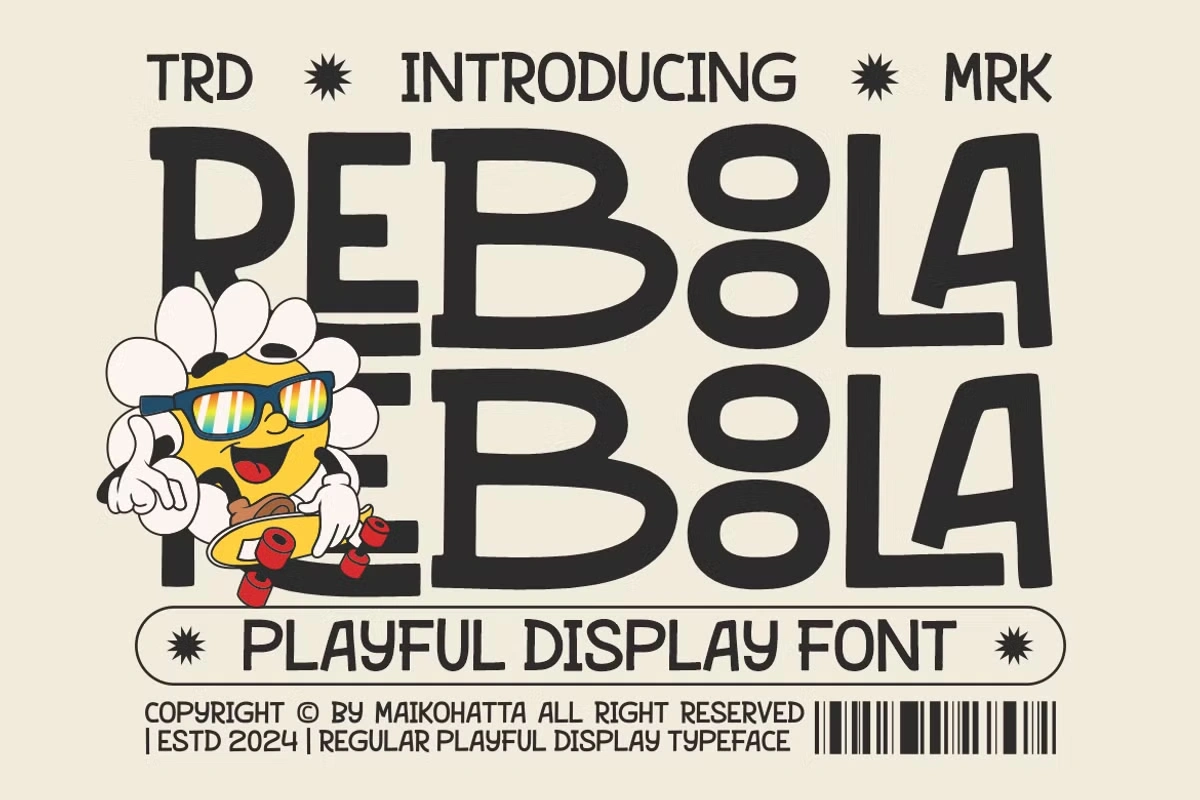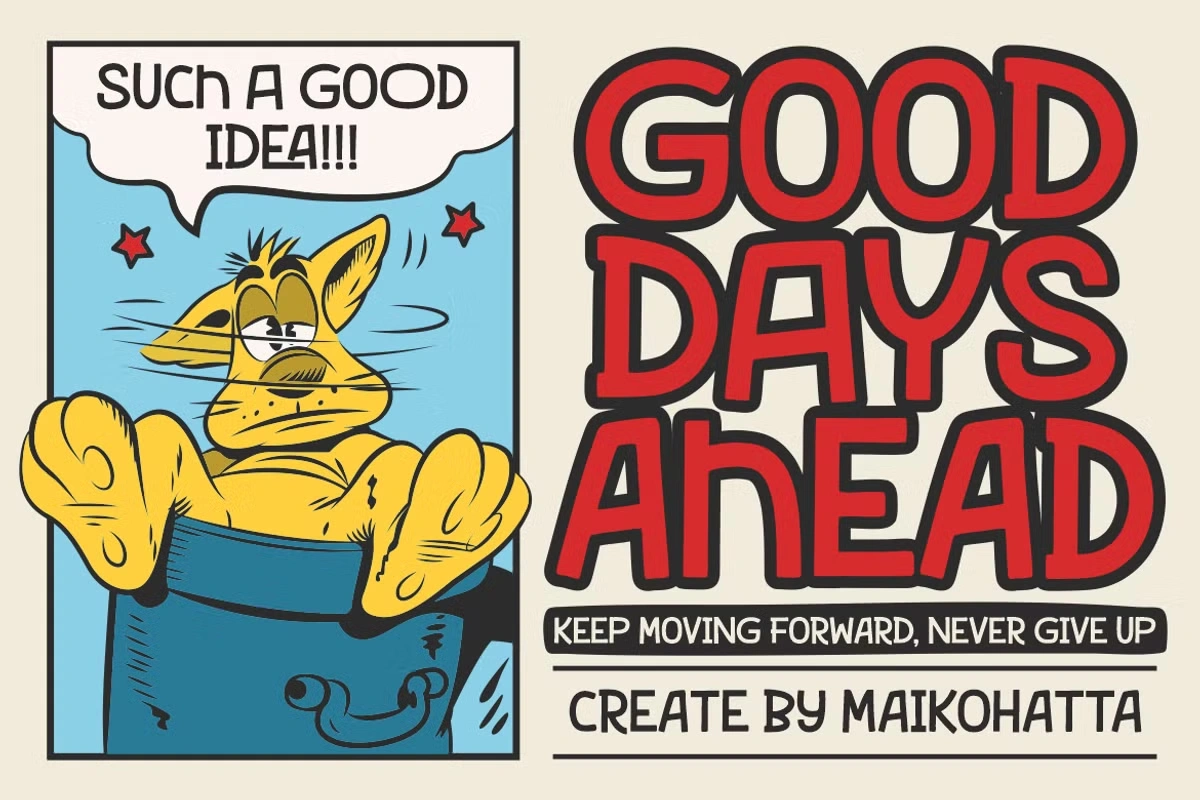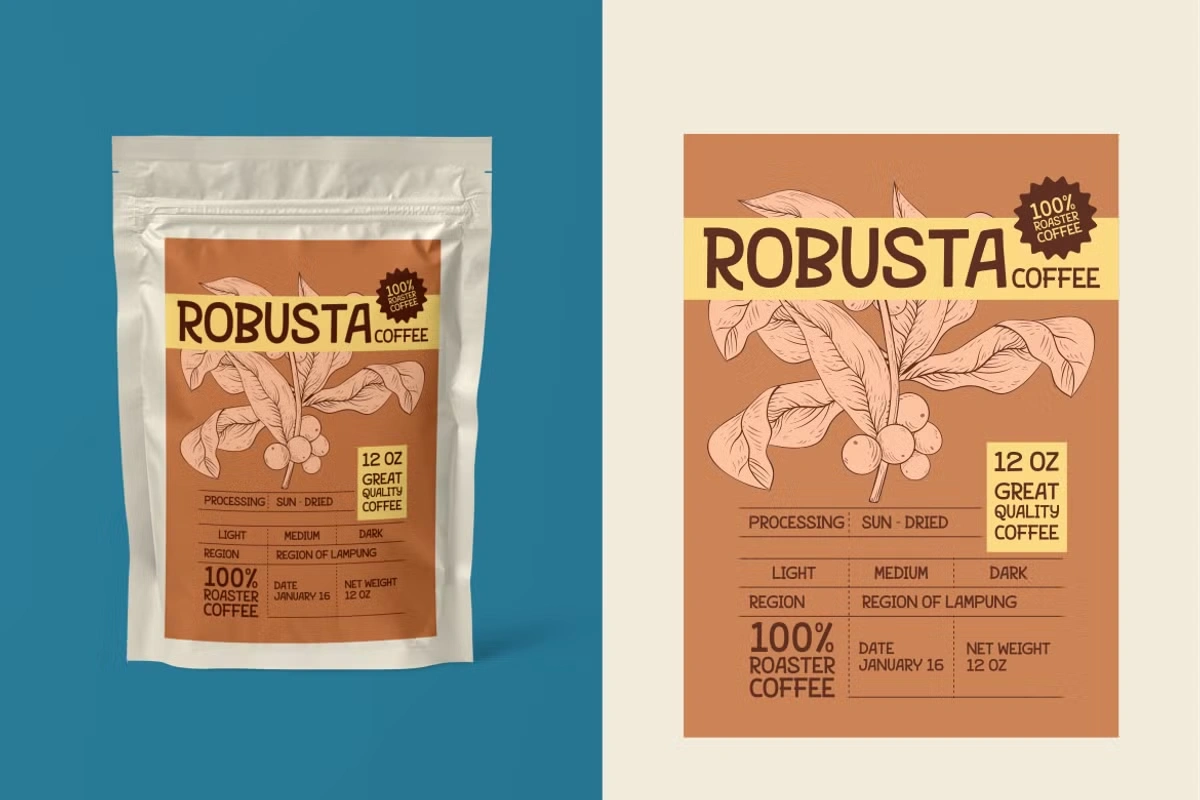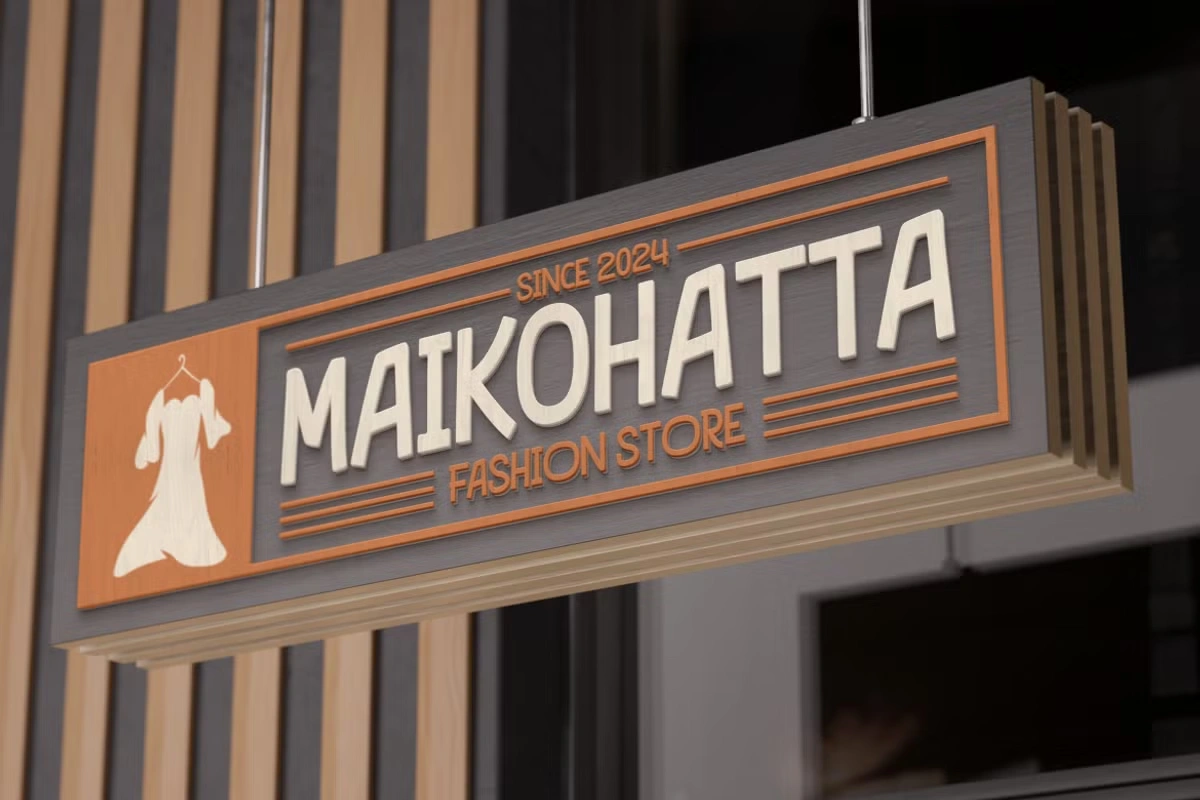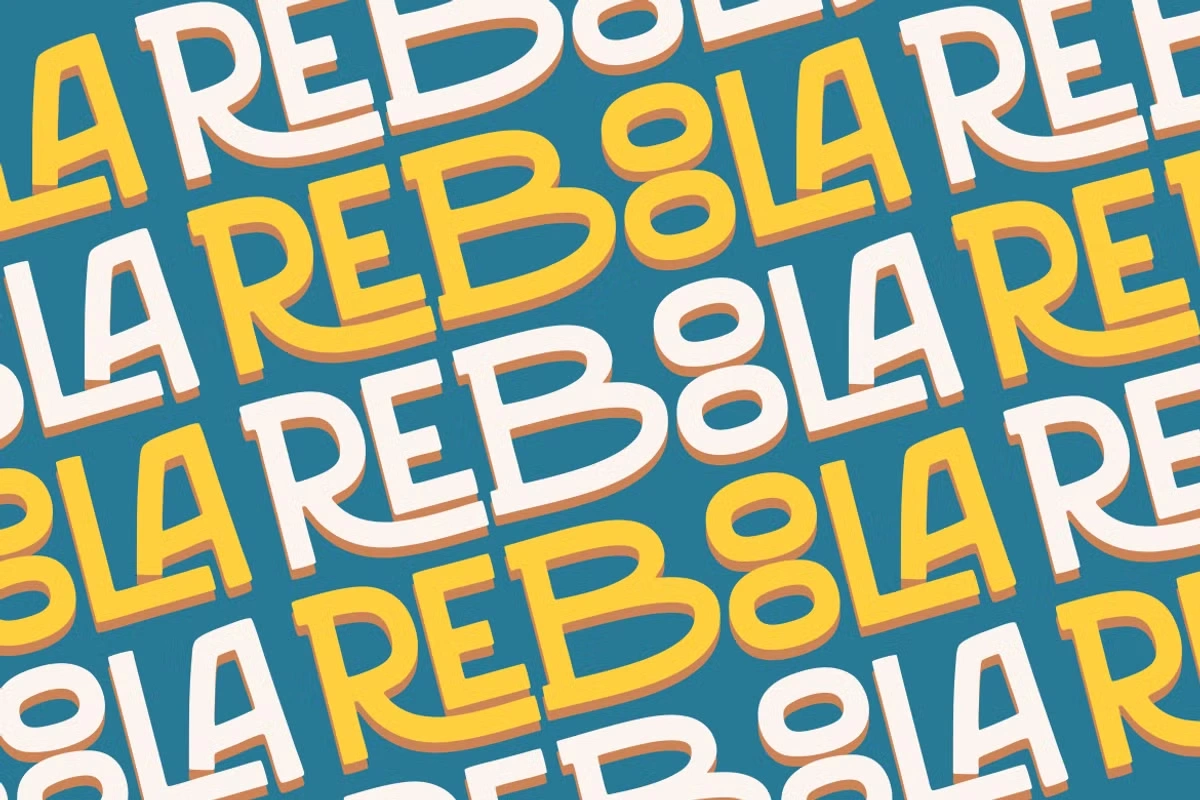
About Reboola Font
I’m a graphic designer and typographer who works on identity and branding projects across digital and print. Fonts are everything to me. They shape how we feel when we look at a product. That’s why I pay close attention to every typeface I use. I came across Reboola Font while searching for a playful display font for a youth-centered branding project. I wanted something fun but still professional—and Reboola caught my eye right away.
It wasn’t just the style. It was the mood. The Reboola Font gives off this light, cheerful vibe that feels handwritten but polished. I used it across posters, logos, and digital invites. It felt perfect for a brand focused on kids and creativity. It worked seamlessly across platforms like macOS and webfont settings. If you’re into typography and love fonts that speak personality, this one deserves a closer look.
Reboola Font and Its Designer
Reboola Font is a playful display typeface designed by MaikoHatta. This isn’t just another casual font—it’s a carefully crafted product meant to add a splash of joy to any project. The font is ideal for posters, websites, invitation cards, or any application that needs a sense of fun. It carries a creative charm that reflects cheerfulness, with soft handwritten touches that make it feel friendly and light.
The typeface mixes display and sans-serif elements in a unique way. It isn’t loud, but it gets noticed. The style often found in comics or cartoons inspires its strokes, with rounded forms and energetic curves. You get the feeling of movement and expression in every letter. The handwritten style often found in playful designs makes this font feel alive.
Reboola Font Features
This font is packed with character—literally. You get uppercase, lowercase, multilingual support, ligatures, and alternates. That makes it flexible across many languages and project types. Whether you’re designing with InDesign, Microsoft tools, or planning mobile applications on Android or iOS, the font installs cleanly and runs without glitches.
The font is characterized by reflecting joy. That’s not just a tagline—it shows in the way each letter is shaped. The rounded edges and fun glyphs create a light atmosphere with a handwritten style. This makes it an ideal choice for materials aimed at a younger audience, or for brands looking to add a playful touch. The typeface highlights elements of playfulness and fun while staying clean enough for commercial use.
It’s not just fun—it’s versatile. The font works great for logos, webfonts, and ebooks. Whether you’re designing in Linux or working with EPUB formats, this typeface adapts. You’ll find it fits right in with your typography toolkit. Think posters, text overlays, product labels, or anything that wants to highlight creativity. Fonts like this don’t come around often, especially with such a smooth display of character and energy.
Reboola Font is perfect for any project that needs energy and personality. It works especially well for branding, event materials, educational platforms, or anything creative. I’ve used it in a youth-focused brand identity, and it immediately brought the designs to life. The playful display nature of the font makes it shine in poster designs, comics, invitation cards, and promotional materials aimed at a younger audience.
It fits great with digital platforms too. Whether you’re building a kid-friendly website, an ebook, or designing in Photoshop or Adobe Illustrator, this typeface holds up well. It adds emotion to your typography without being overwhelming.
If you’re doing packaging, logo work, or layout design that needs a light, handwritten tone—this font delivers. It’s not stiff like some serif or sans-serif fonts. It brings an element of fun that’s hard to find in other display fonts. You can install it across macOS, Linux, or Windows, and it looks great even on smaller mobile screens. Use it to highlight key text or make your project feel more personal. This font is ideal for creative professionals who want a tool that’s both accessible and expressive.